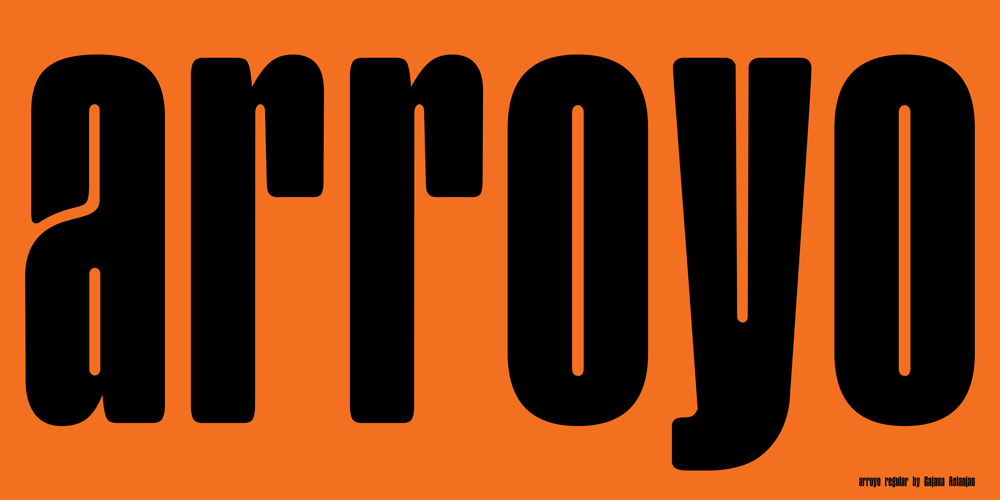
Arroyo
Arroyo font
Arroyo Font Family was designed by Gajana Aslanjan and published by Gajana Aslanjan. Arroyo contains 3 styles and family package options. Arroyo is based on water flow. Little creeks on the surface of the earth formed by the action of fast-flowing water, this phenomenon inspired me to create this font. The little gaps/creeks form the letters of the font.